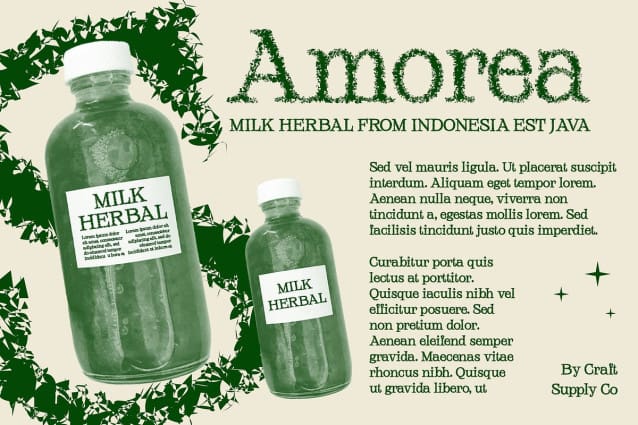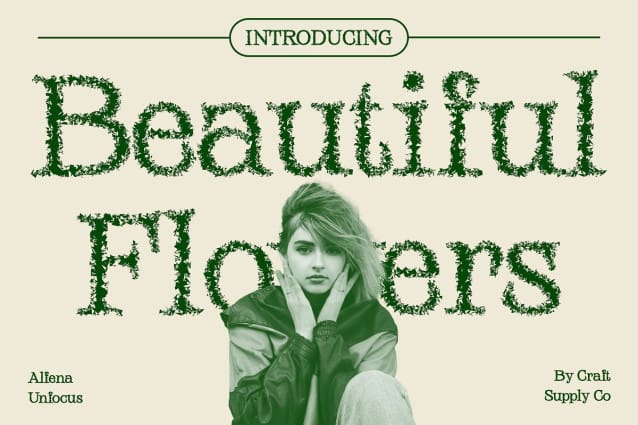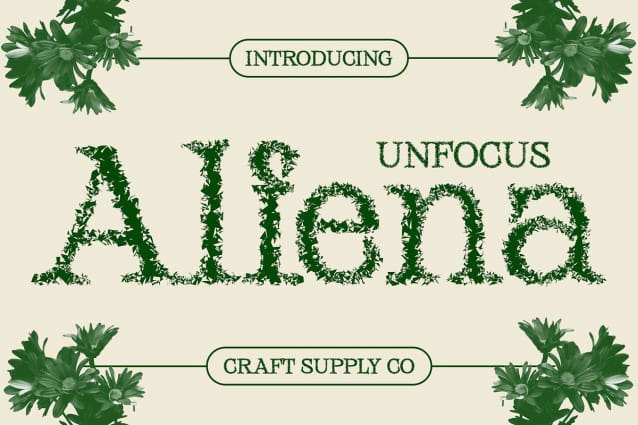
Alfena Unfocus Font
Alfena Unfocus Font: Redefining Display Typography. Unfocused Elegance Alfena Unfocus presents a unique take on display serif fonts with its captivating unfocused effect. This unconventional style adds a touch of mystery and allure to any design project.
Serif Sophistication, Unfocused Appeal Combining classic serif shapes with the intriguing unfocus effect, This font exudes sophistication with a twist. Its blurred edges create an ethereal ambiance, perfect for captivating display needs.
Tailored for Display Crafted specifically for display purposes, This font thrives in various design contexts. From website headers to product packaging, its distinctive style ensures that your message stands out with charm and character.
Versatile Application Beyond its mesmerizing appearance, This font offers versatility in application. Whether used in branding, editorial layouts, or social media graphics, its unfocused effect adds depth and interest to every design.
Where Elegance Meets Intrigue This font redefines display typography with its blend of serif sophistication and unfocused allure. Embrace its unique charm and elevate your designs with a touch of mystery and sophistication. Experience the captivating allure of This font today.